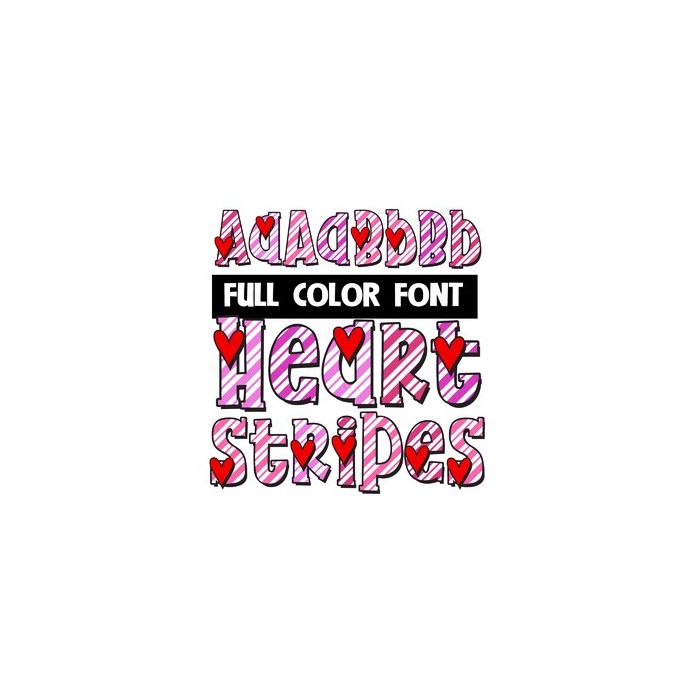
This full-color font features a striped font in pinks, purples and white. For best results mix both cases up as you type. There is an alt case w/ additional colors you can access through your system or Silhouette's glyph map. This font works best for titles, displays, posters and more. Please note color fonts will show as black in non compatible programs. This font type is compatible with Silhouette Studio.